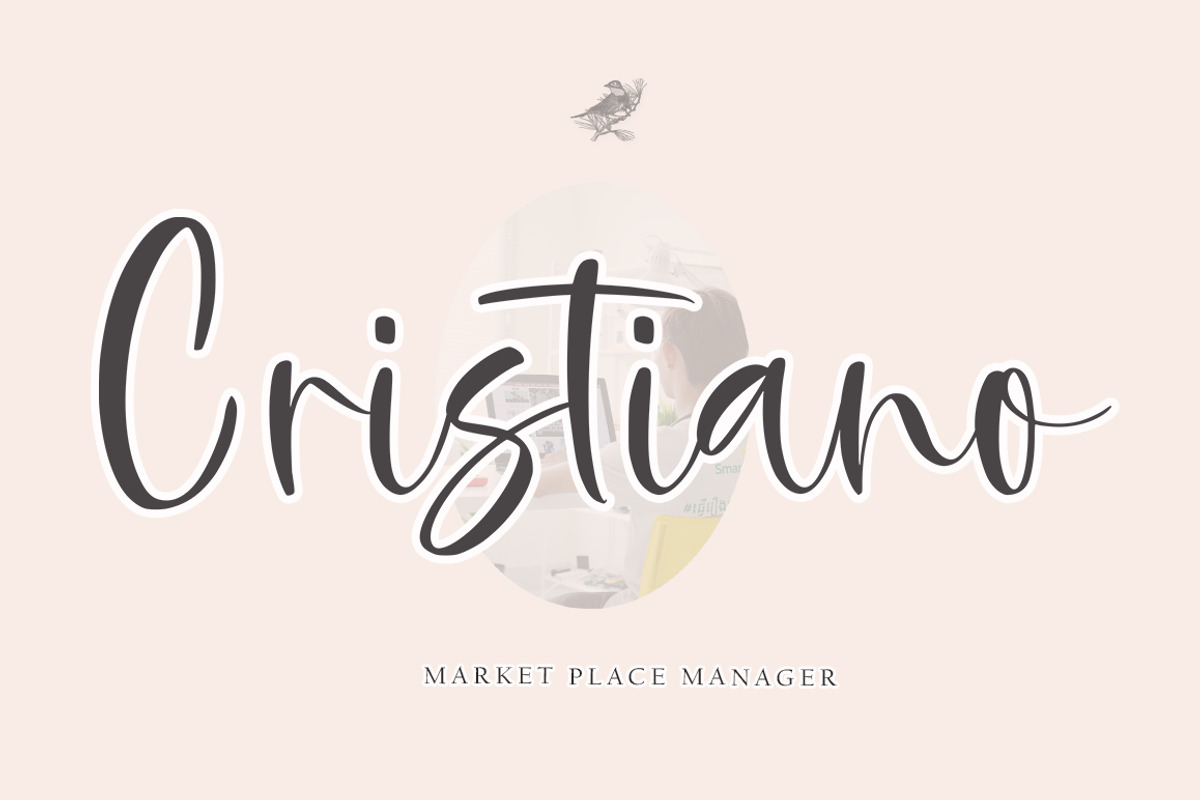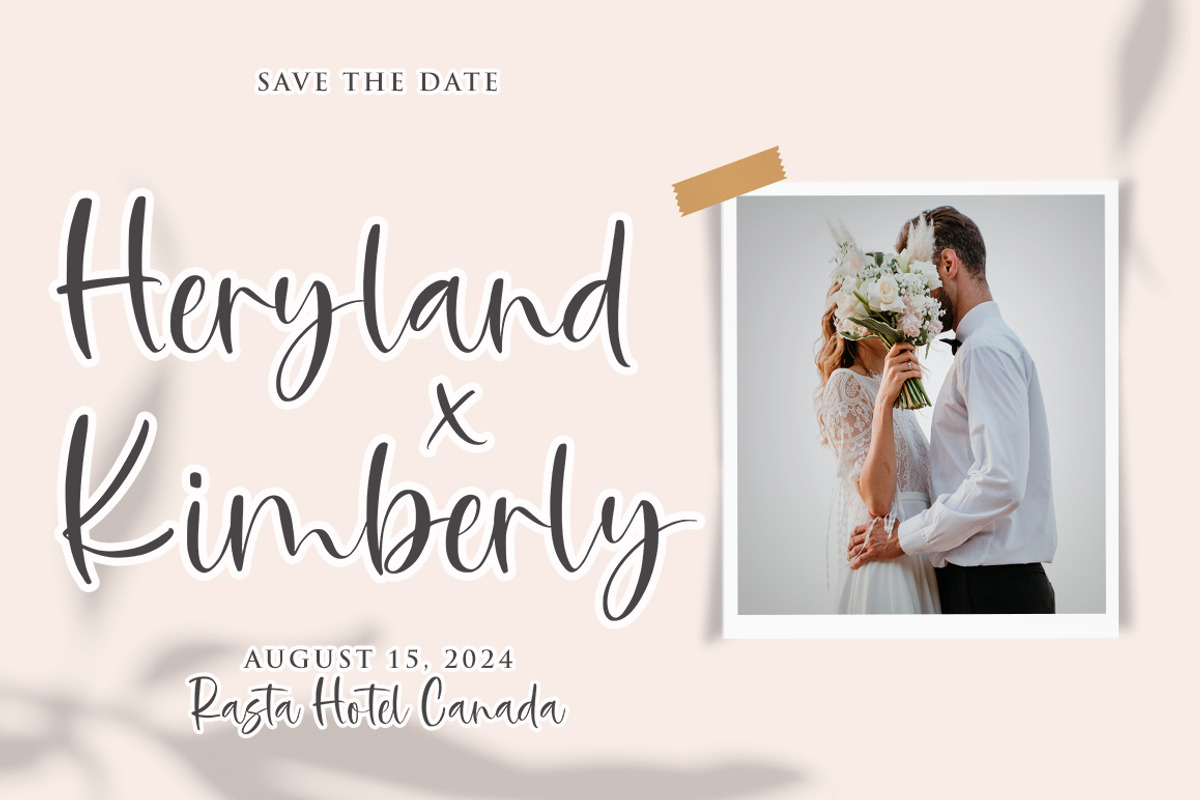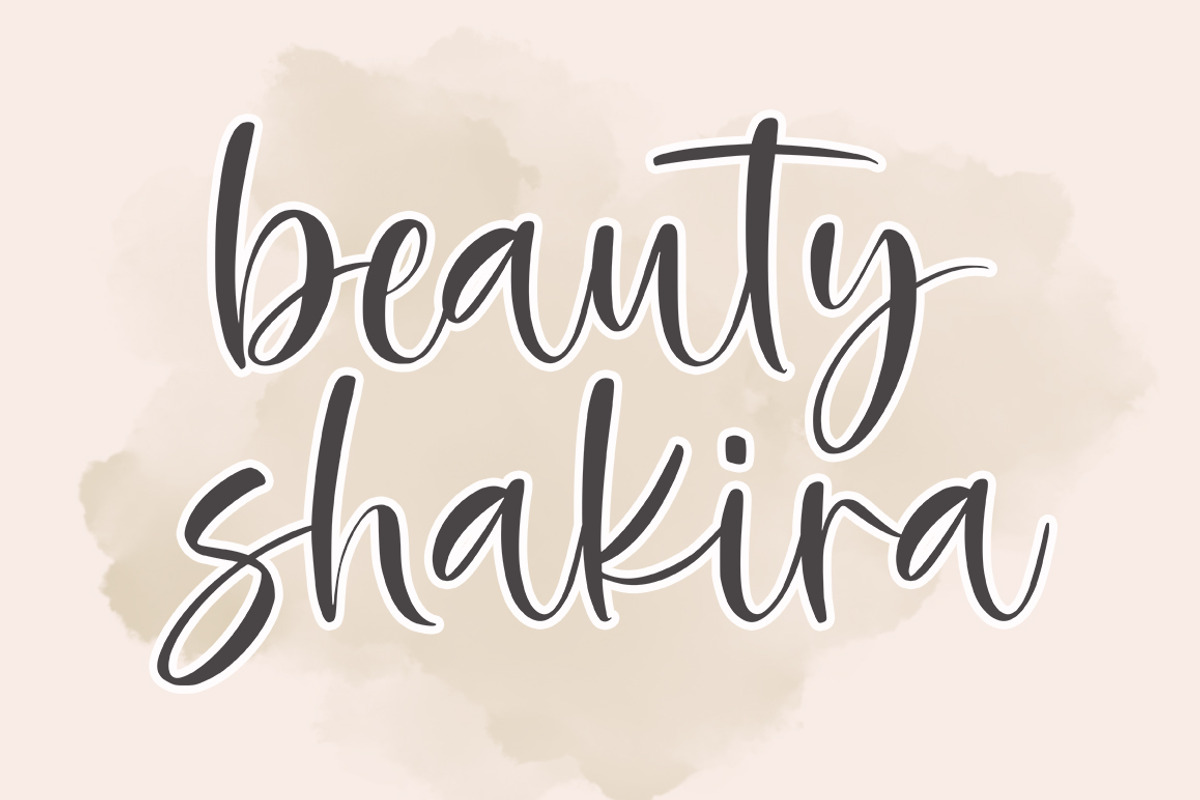
Rusliny Script
Rusliny Script and Underline is a handwritten font with a modern calligraphic feel.
Rusliny is perfect for modern projects, business cards, headers, blogs, logos, branding, invitations and more!
The font includes multiple language support.